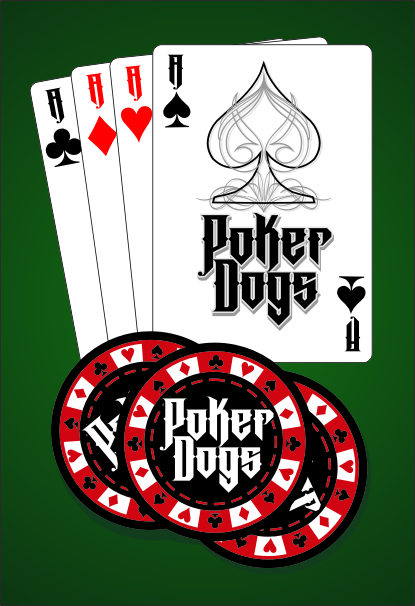
Super cool. Congratulations, TP well deserved. 10/10
A definite 10/10 for this touch-of-goth font. Congratulations on the TP :)
I really love this font but unfortunately, to me, the L looks too much like a b...but really really nice work!
I like it's 'pointed' and 'V' looks. I like the extensions this gives to both Caps & lc. And I like the fonts density in blackness & the folds & bends look & feel. This makes it very integrated.
Great font design!